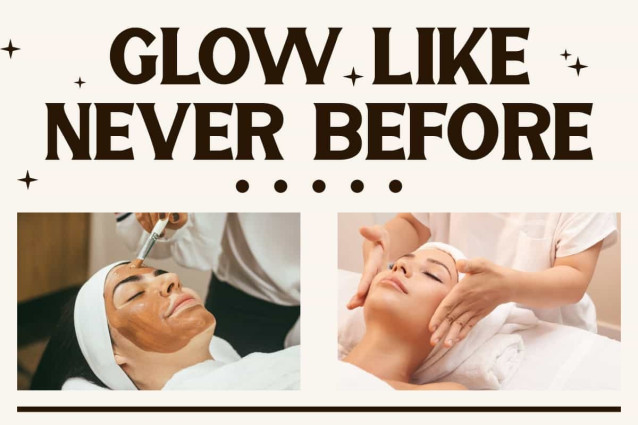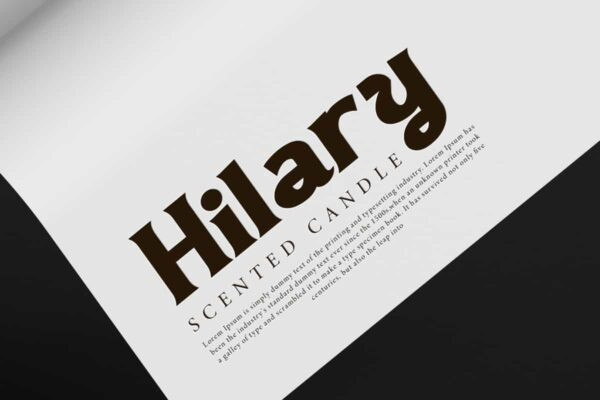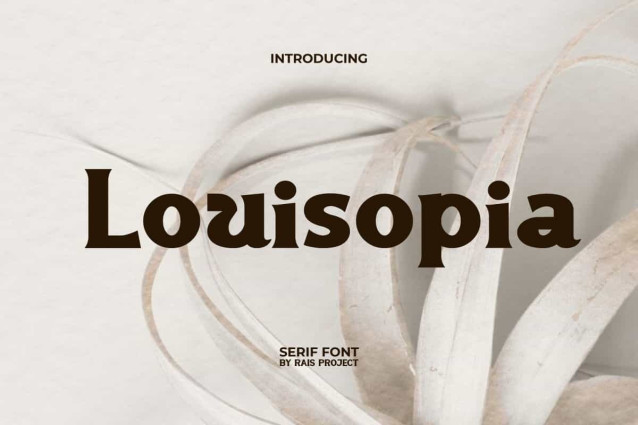
Louisopia Font
Louisopia Font is a unique and fashionable serif font, well made by RaisProject. The uppercase and lowercase letters in this font have an interesting combination and can provide an aesthetic look to any design. It will be good for invitation, label, poster, signage, cover, menu, custom design, brand image, product packaging, quotes, stationery, web, and more!
Louisopia Font includes a full set of Uppercase and Lowercase Letters, Numerals, Punctuation and Symbol. This stylish font will be suitable for various industries, such as beauty product, fashion, accessories, advertisement, event or festival, cafe, homeware, perfume, photography, printing, publishing, real estate, etc.